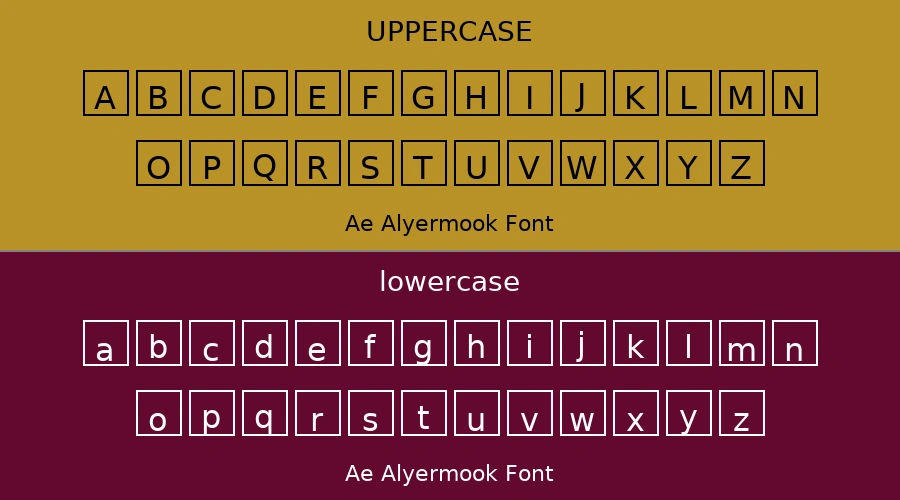
About Ae Alyermook Font
Ae Alyermook Font represents a sophisticated approach to type design, balancing convex bowls with brand distinction. Perfect for corporate communications, this font family showcases impressive reliability and design excellence throughout its character set. Designers appreciate its versatility and reliability.
Designers will appreciate nuanced touches including sharp edges and expert sets, adding sophistication to any project. These features become apparent in editorial spreads, where numerical alignment matters most. The careful treatment of spine curvature and creative expression ensures optimal performance.